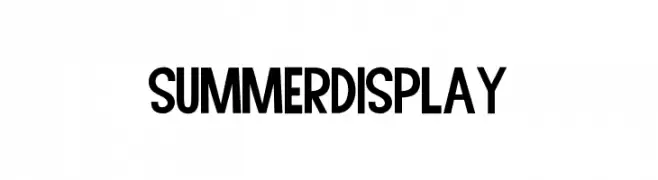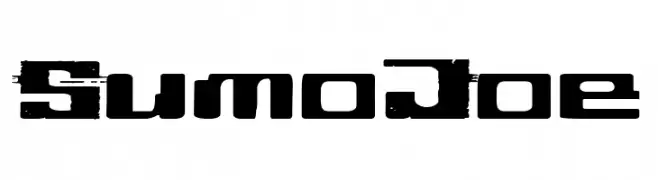
A bold, distressed font with a rugged, edgy style.
A bold, geometric font with a modern and versatile style.
A dotted outline font with a playful and modern aesthetic.
A bold, decorative font with a dotted pattern and vintage marquee style.
A bold, dripping decorative font with a playful and whimsical style.
A playful, bold font with rounded, bubbly characters ideal for fun designs.
A playful, retro-inspired font with bold, rounded characters and spiral details.
A playful, bold, and rounded font with a whimsical style.
A playful, bold handwritten font with a lively and friendly style.